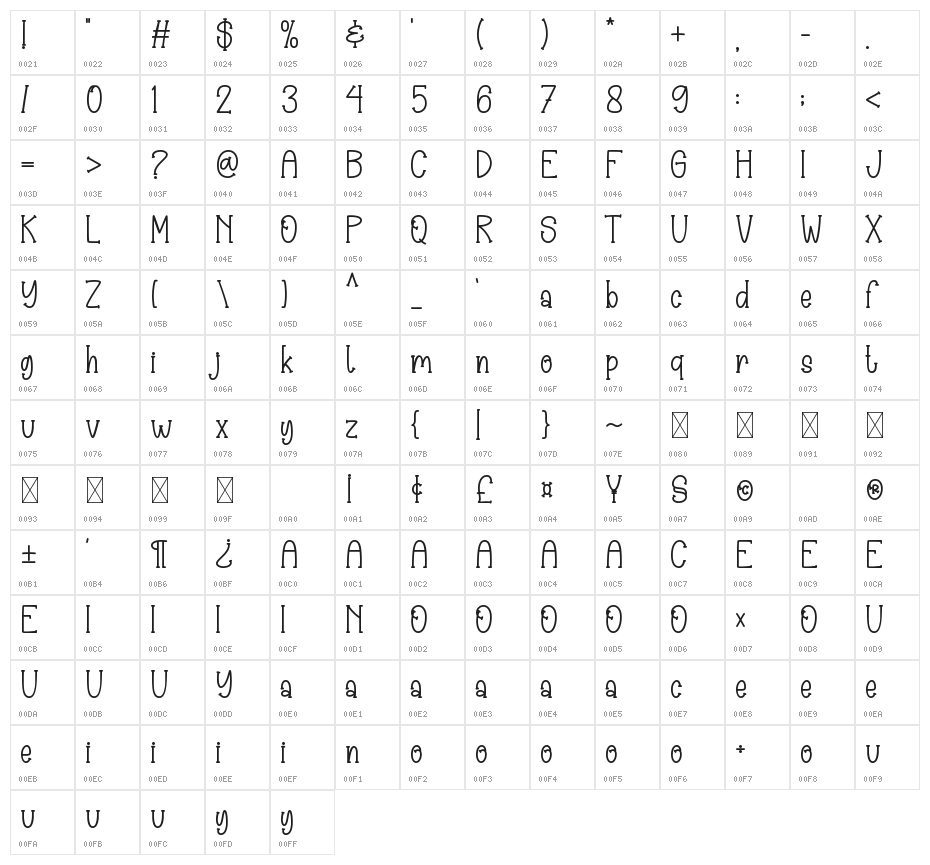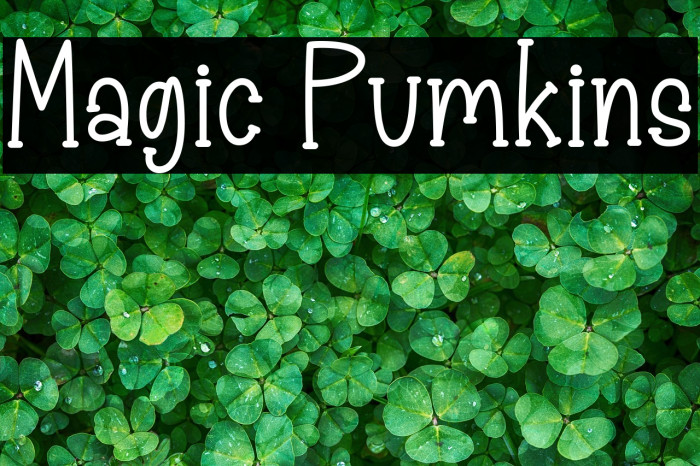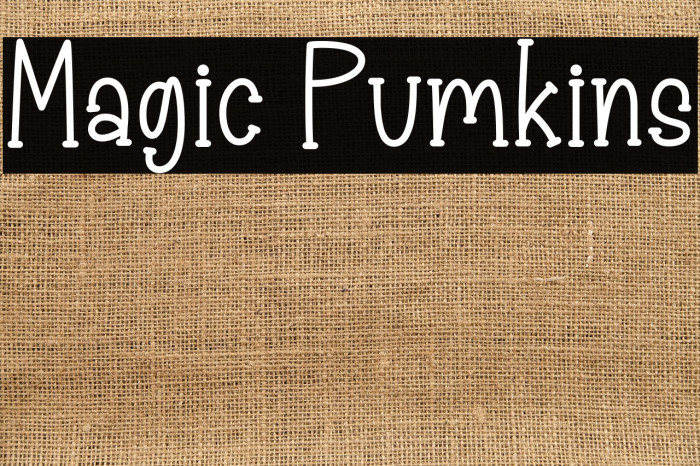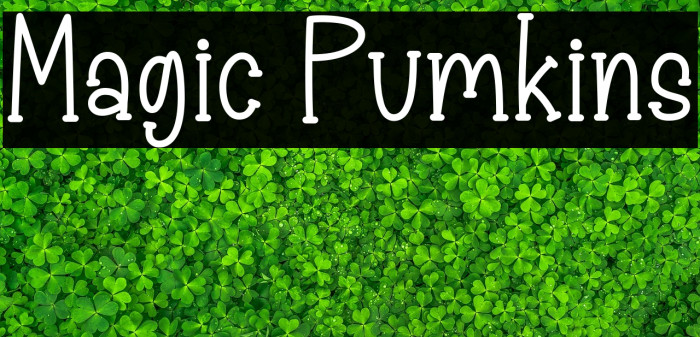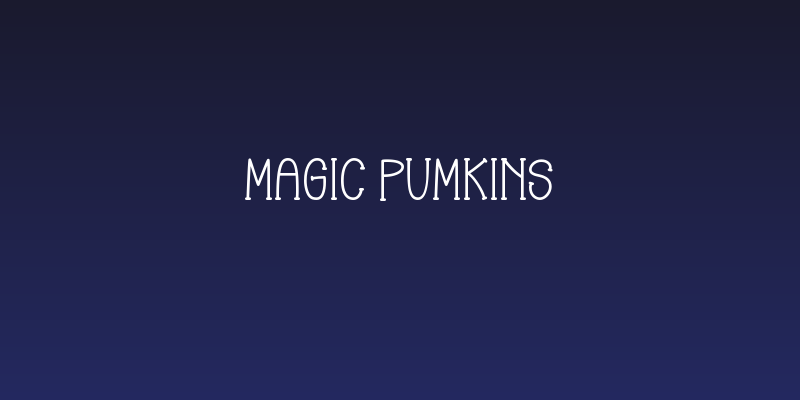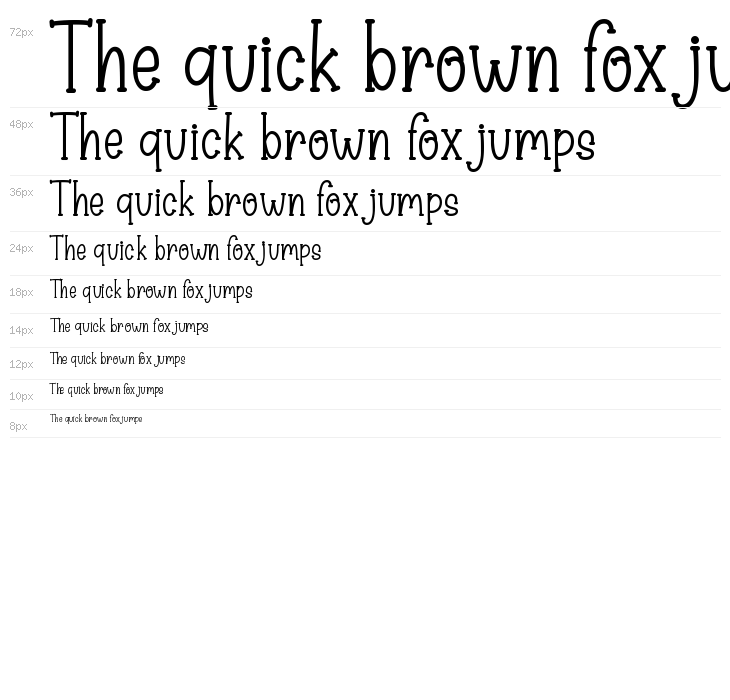
Magic Pumkins Font
Magic Pumkins Description
This playful and whimsical font features a hand-drawn style with a slightly irregular and quirky appearance. The letters are tall and narrow, with rounded edges and a consistent stroke width that gives it a friendly and approachable feel. The uppercase and lowercase letters maintain a consistent style, with the lowercase letters having a slightly more playful bounce. The numerals and special characters are designed to match the overall aesthetic, making the font versatile for various creative projects. Its unique charm makes it suitable for children's books, playful branding, and festive designs.
| Proposed Projects | Ideal for children's books, playful branding, festive invitations, and creative posters. |